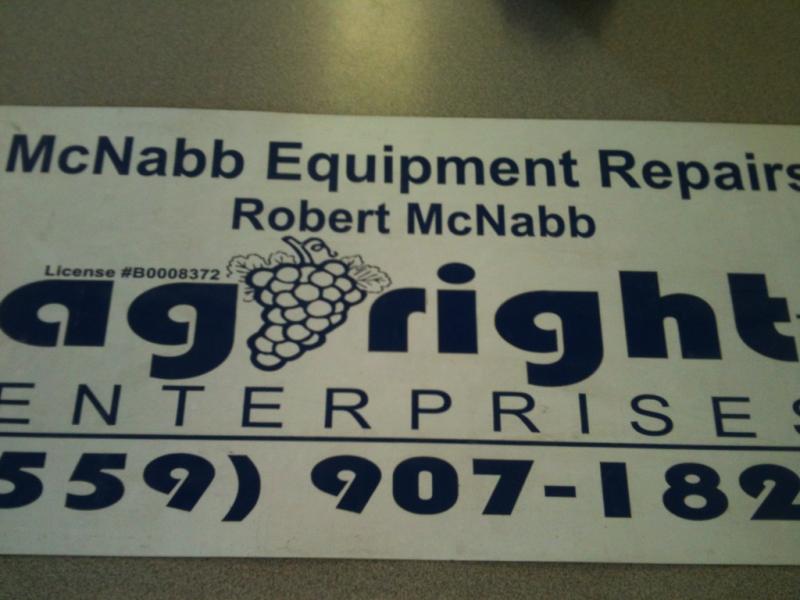
Help Finding Font.
Can anyone help me identify this font please.
Not sure if that is a font itself but PUMP BOLD with some corners added will do.
EDIT: BLIPPO BLACK is a better start to add corners to. It has the correct terminals.